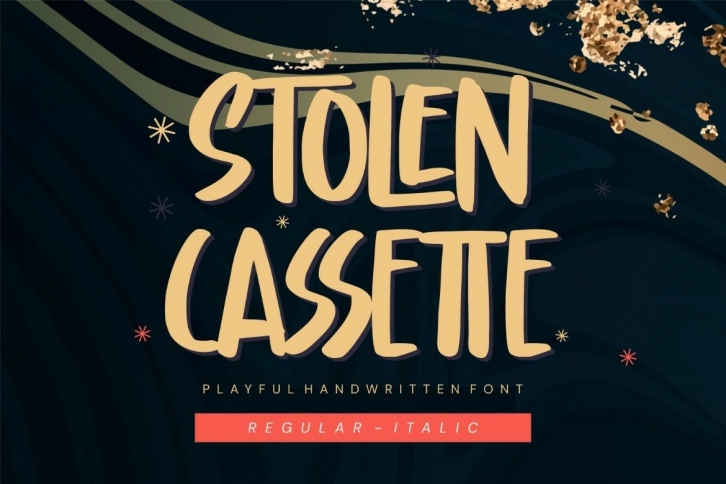
Stolen Cassette is a great font that was designed by Gassstype Studio. Imagine the amount of combinations you can create using this font! The archive is 21.99 MB and it was released on August 25, 2021. Stolen Cassette looks beautiful on wedding invitations, greeting cards, logos, posters, labels, t-shirt designs, logos, business cards and is perfect for use in ink or watercolor works, fashion, magazines, packaging and food menus, children's books and more!